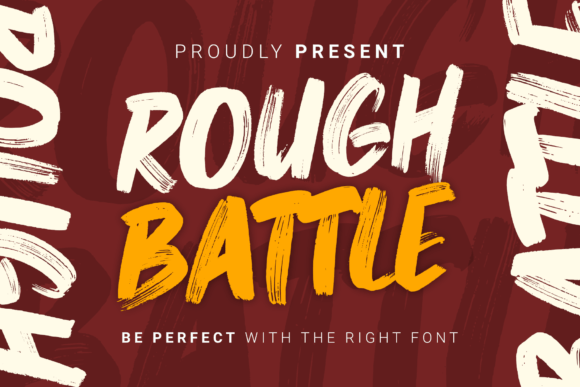
Introducing Rough Battle, the intrepid font family that exudes a unique blend of modernity and rustic charm. Its rough brush style adds a touch of personality to any design project, evoking a sense of both strength and playfulness.
Sought after by discerning designers, Rough Battle is ideally suited for branding and logos, posters, t-shirts, business cards, and more. Its industrial edge brings a distinctive flair to contemporary designs, while its casual appeal adds a touch of approachability.
With its versatility and timeless charm, Rough Battle is the perfect font for expressing your creativity. Its ability to seamlessly adapt to various design styles makes it a valuable asset for any designer's toolkit.
Crafted by the renowned font designer DUMADI, Rough Battle is a true masterpiece of digital artistry. Its unique strokes and carefully crafted details reflect DUMADI's passion for creating fonts that inspire and captivate.
Embark on a design adventure with Rough Battle, the font that will elevate your projects to new heights. Let its rugged charm and undeniable personality breathe life into your creative endeavors.